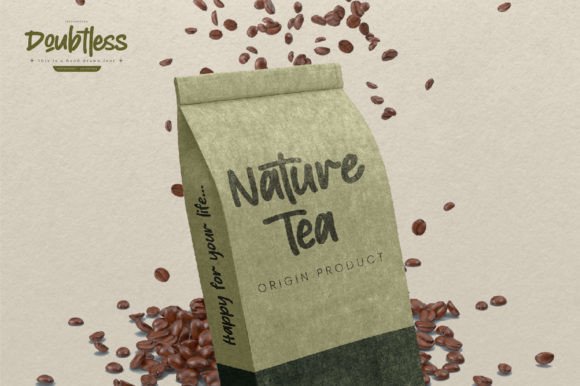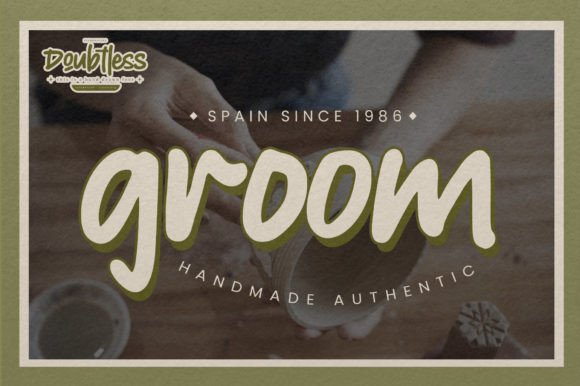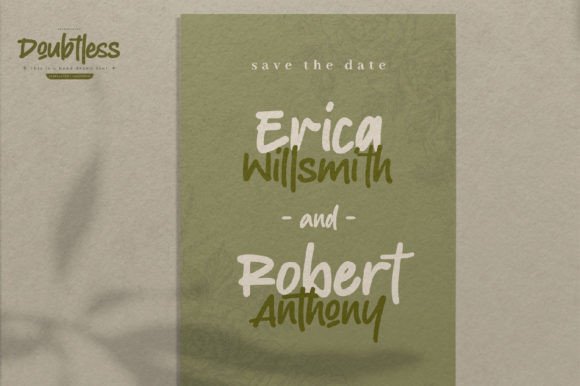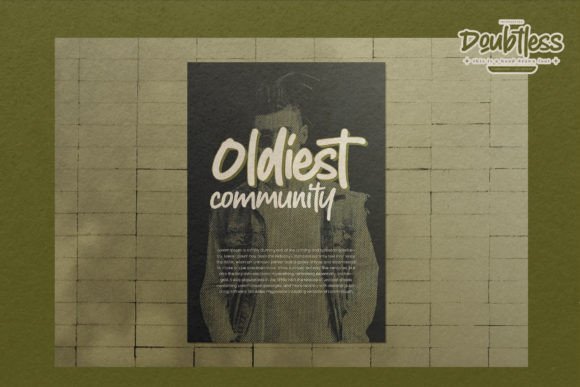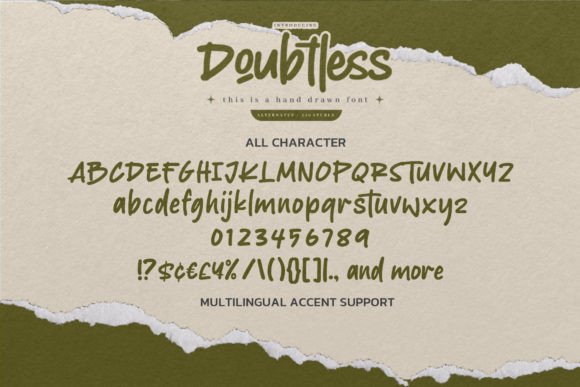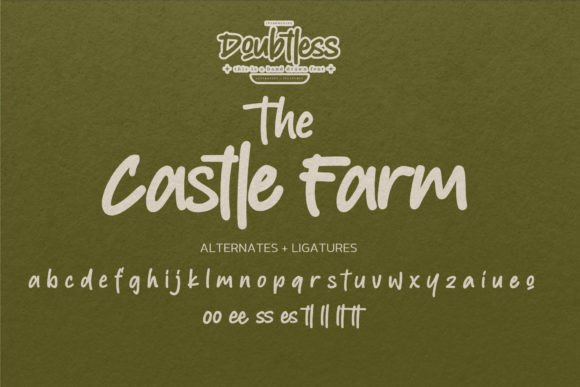
Introducing Doubtless Font: The Sweet and Friendly Handwritten Font
Are you tired of using the same old fonts in your designs? Look no further! Doubtless Font is a beautiful, sweet, and friendly handwritten font that can add a touch of personality to your creations. Its natural and unique style makes it incredibly fitting to a large pool of designs, and the only limit is your imagination!
What is Doubtless Font?
Doubtless Font is a type of handwritten font that is designed to look like it was written with a pen or pencil. It’s a digital font that can be used on a variety of platforms, including graphic design software, websites, and social media. This font is perfect for designers, crafters, and anyone who wants to add a personal touch to their work.
Characteristics of Doubtless Font
So, what makes Doubtless Font so special? Here are a few of its key characteristics:
- Sweet and Friendly: Doubtless Font has a warm and inviting feel to it. It’s perfect for designs that require a friendly and approachable tone.
- Handwritten: This font is designed to look like it was written by hand, giving it a personal and unique touch.
- Natural and Unique: Doubtless Font has a natural, organic feel to it that sets it apart from other fonts.
- Versatile: This font can be used in a wide range of designs, from digital graphics to print materials.
Uses for Doubtless Font
So, what can you use Doubtless Font for? The possibilities are endless! Here are a few ideas to get you started:
- Digital Graphics: Use Doubtless Font to create social media graphics, blog posts, and other digital content that requires a personal touch.
- Print Materials: This font is perfect for print materials like brochures, flyers, and business cards.
- Crafting: Doubtless Font is a great choice for crafters who want to add a personal touch to their projects, such as handmade cards and scrapbooking.
- Web Design: Use this font to create a unique and inviting website that stands out from the crowd.
Benefits of Using Doubtless Font
So, why should you choose Doubtless Font for your designs? Here are a few benefits:
- Personal Touch: Doubtless Font adds a personal touch to your designs, making them more relatable and engaging.
- Unique Style: This font has a unique style that sets it apart from other fonts, making your designs stand out.
- Easy to Read: Doubtless Font is easy to read, even at small sizes, making it perfect for digital and print materials.
- Versatile: This font can be used in a wide range of designs, making it a great addition to your font library.
Tips for Using Doubtless Font
Here are a few tips for using Doubtless Font in your designs:
- Use it sparingly: While Doubtless Font is beautiful, it can be overwhelming if used too much. Use it sparingly to add a touch of personality to your designs.
- Pair it with other fonts: Doubtless Font pairs well with other fonts, such as sans-serif fonts. Experiment with different pairings to find the one that works best for your design.
- Adjust the size: Doubtless Font can be used at a variety of sizes, but it’s most effective at larger sizes.
In conclusion, Doubtless Font is a beautiful, sweet, and friendly handwritten font that can add a touch of personality to your designs. Its natural and unique style makes it incredibly fitting to a large pool of designs, and the only limit is your imagination! Whether you’re a designer, crafter, or just someone who wants to add a personal touch to their work, Doubtless Font is a great choice.